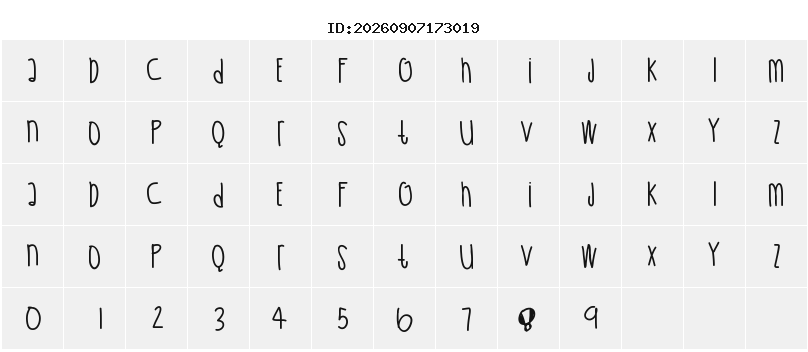
UltraViolet Preview
• Font Name: UltraViolet
• Font Style: UltraViolet
• Full Font Name: UltraViolet
About UltraViolet.ttf
UltraViolet.ttf is a modern, elegant sans-serif font designed for ultimate readability and visual harmony. Perfect for branding, headlines, web design, and print materials.